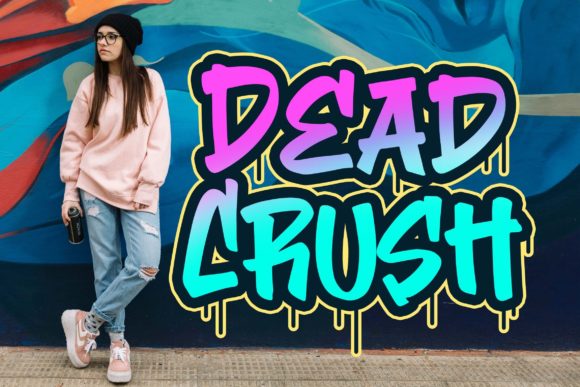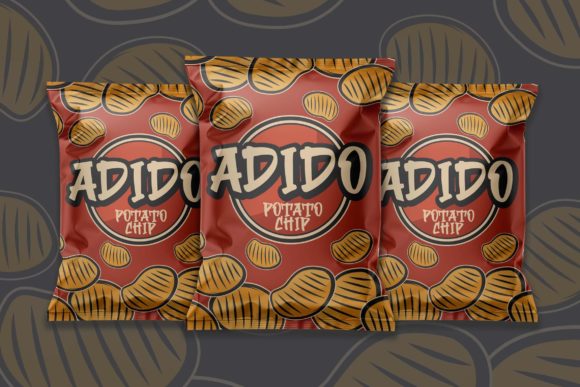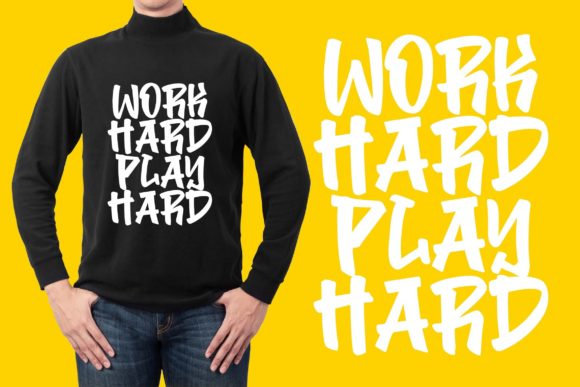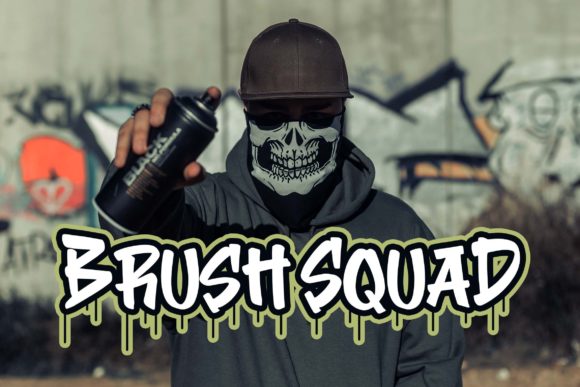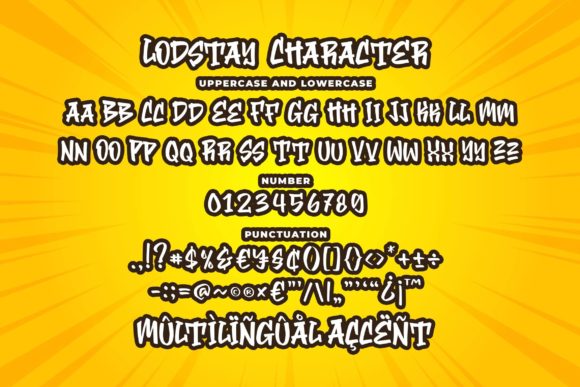
Introduction to Lodstay Font
Lodstay is a bold, dramatic, urban styled display font.
Add this font to your favorite creative ideas and notice how it makes them come alive .
Key Features of Lodstay Font
Why Choose Lodstay Font?
Lodstay Font offers exceptional quality and versatility, making it a valuable addition to your design toolkit. Whether you’re creating for personal projects or commercial use, Lodstay Font delivers professional results.